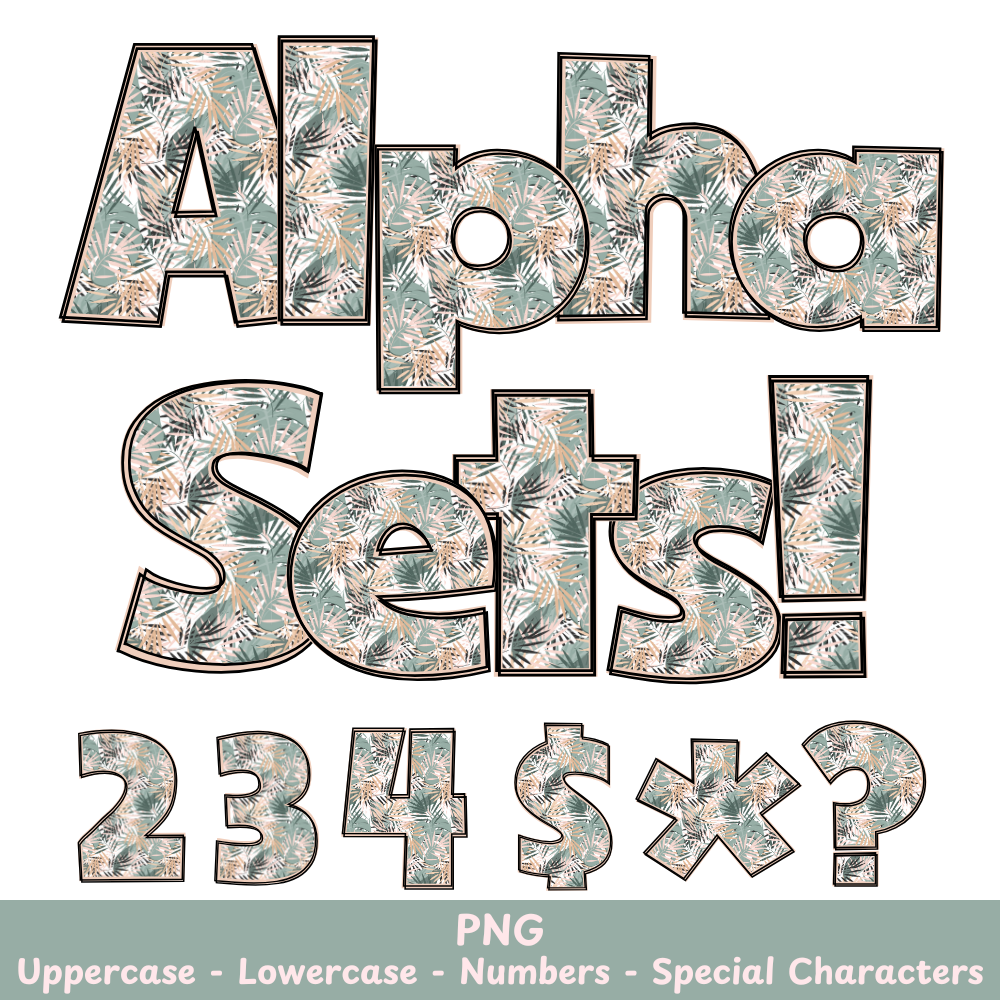
Tropical Palm Leaves PNG Font
Tropical Palm Leaves Alpha Set PNG Font Pack
Add a touch of tropical elegance to your crafts with our Tropical Palm Leaves PNG Font. Perfect for sublimation and other projects, this font features realistic, high-quality palm leaves that will elevate any design. Bring the beauty of the tropics to your creations with ease.